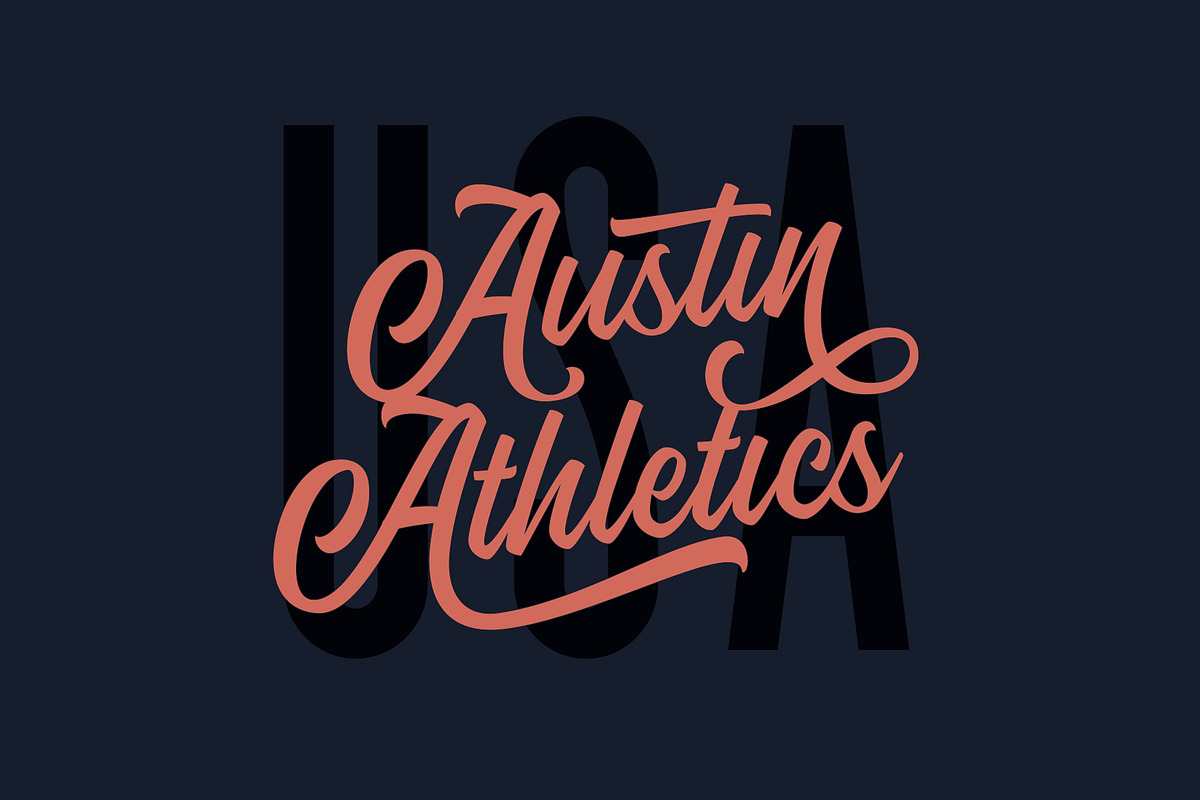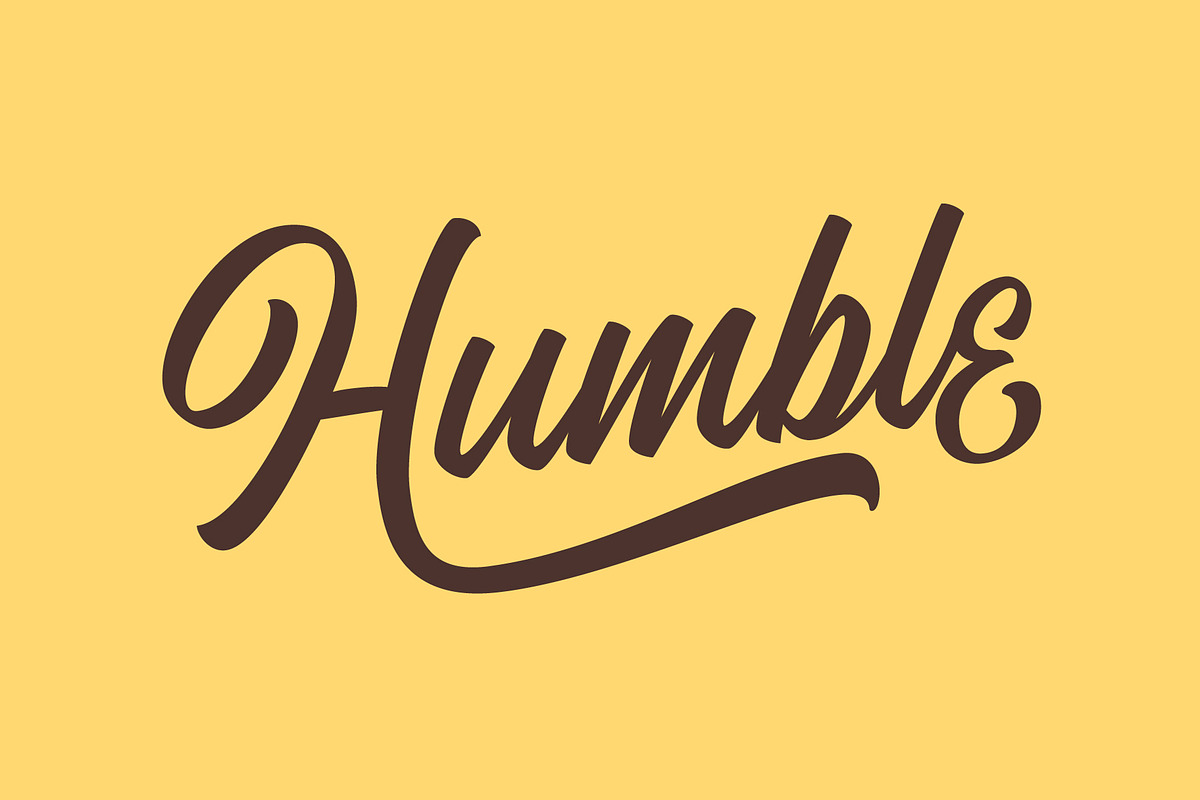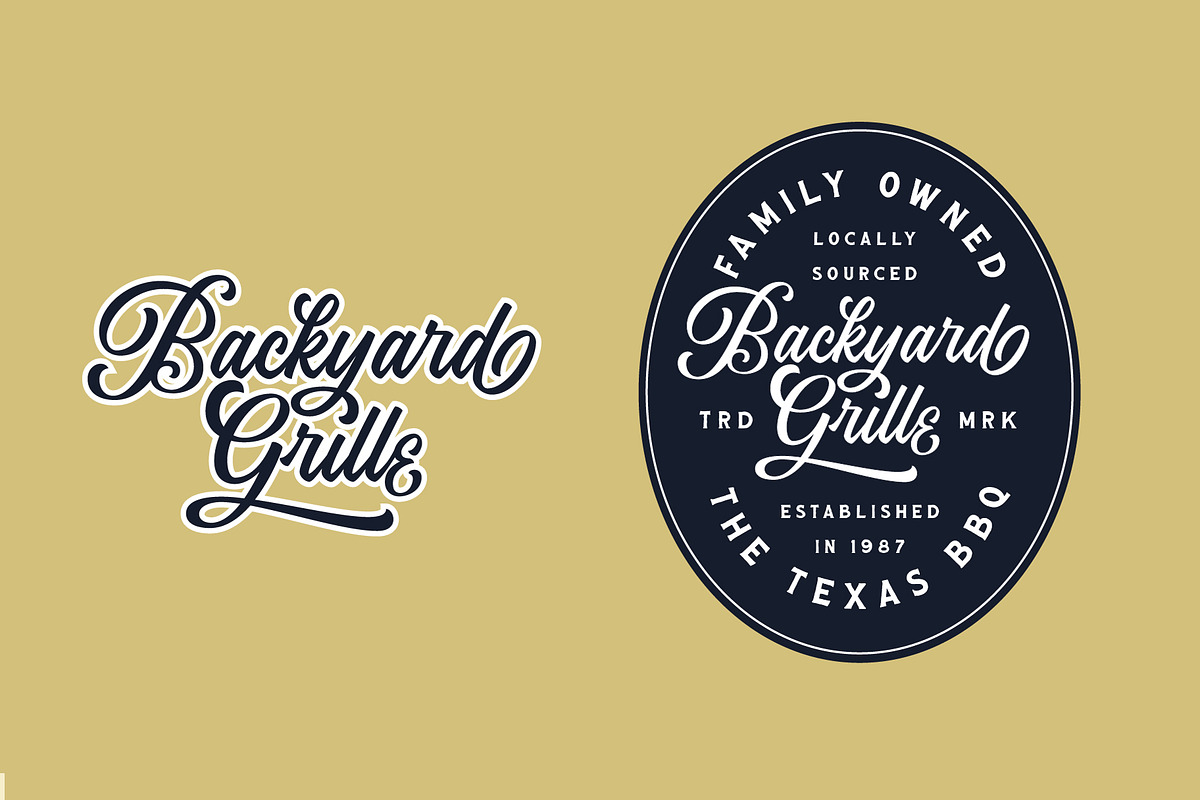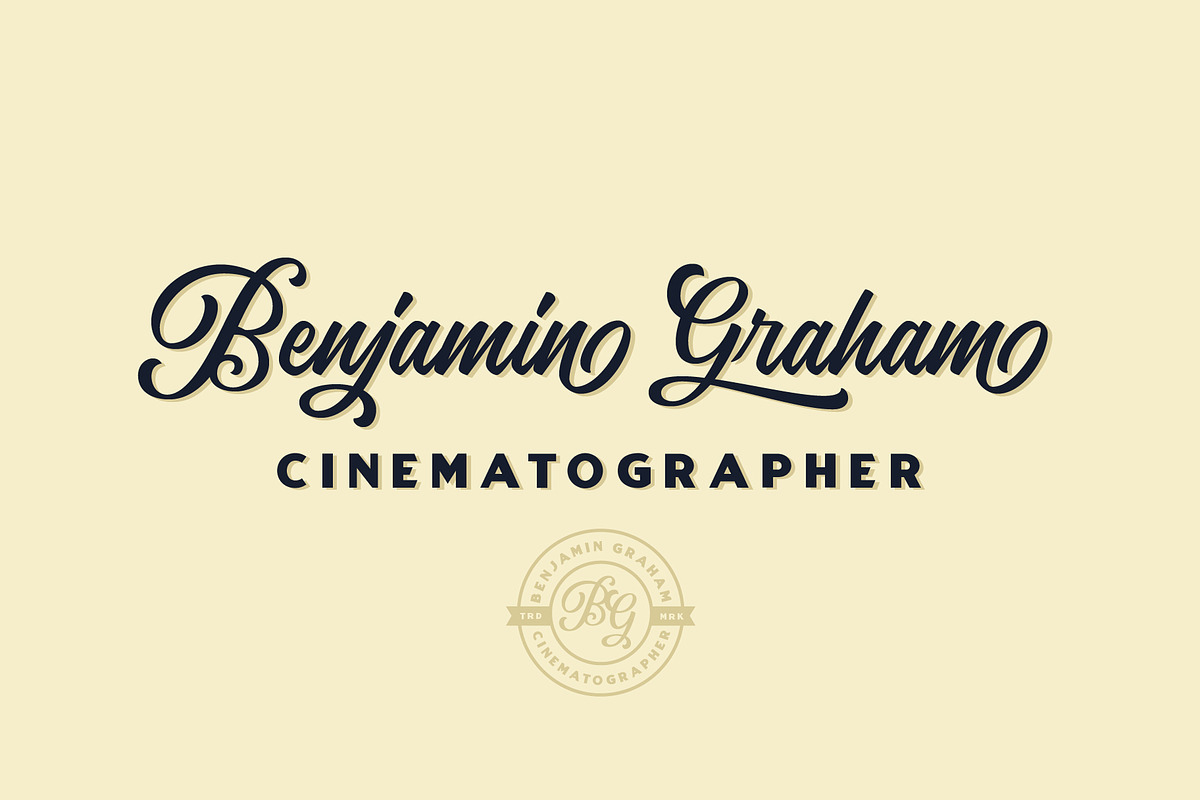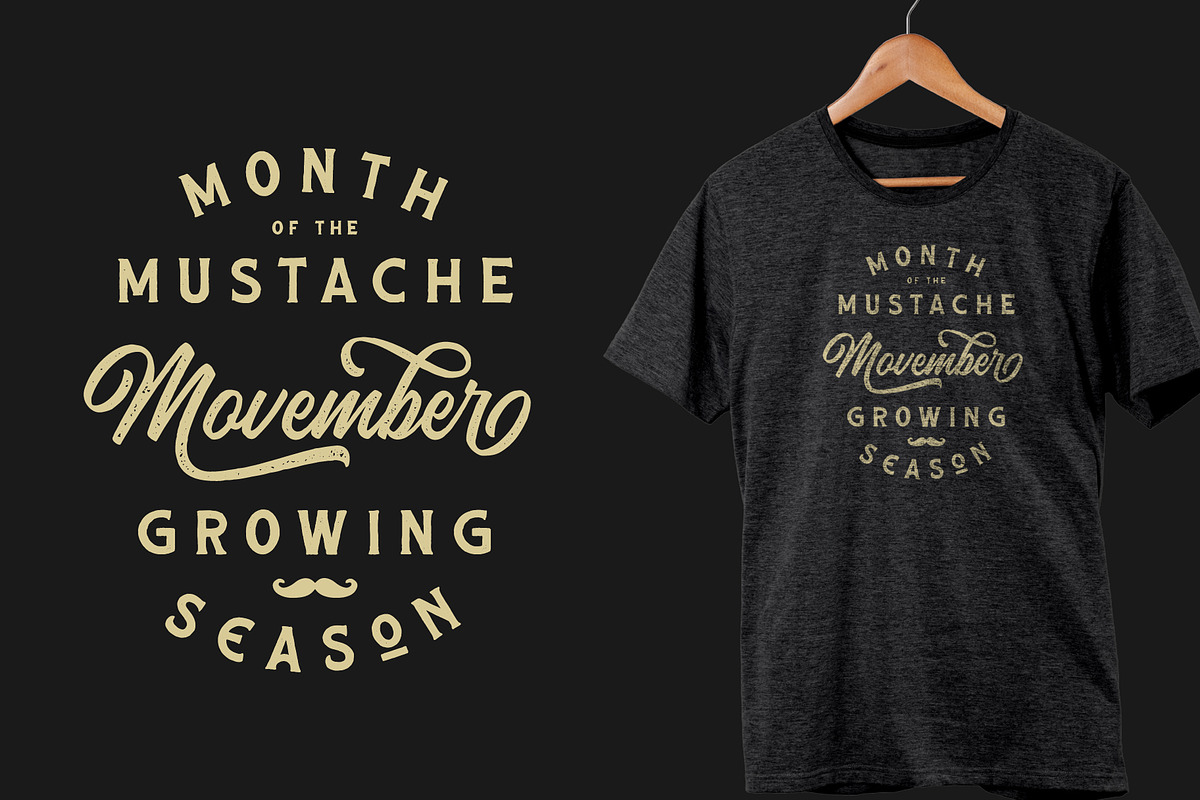
The Artisan's Moniker - Script Font
The Artisan's Moniker
The Artisan's Moniker is an extremely versatile typeface with over 100 extra stylistic characters that will help to transform any word into a unique Logotype in seconds. Buy this font today to own a swiss army knife that will continually help inspire future projects!
Beautiful Script Typeface
100+ Stylistic Extra Characters
Tons of Swashes & Swashy Characters
Regular, Rough & Distressed treatments
The Artisan's Moniker - Script Font by Hustle Supply Co. fits naturally into Branding, posters, packaging, typography.